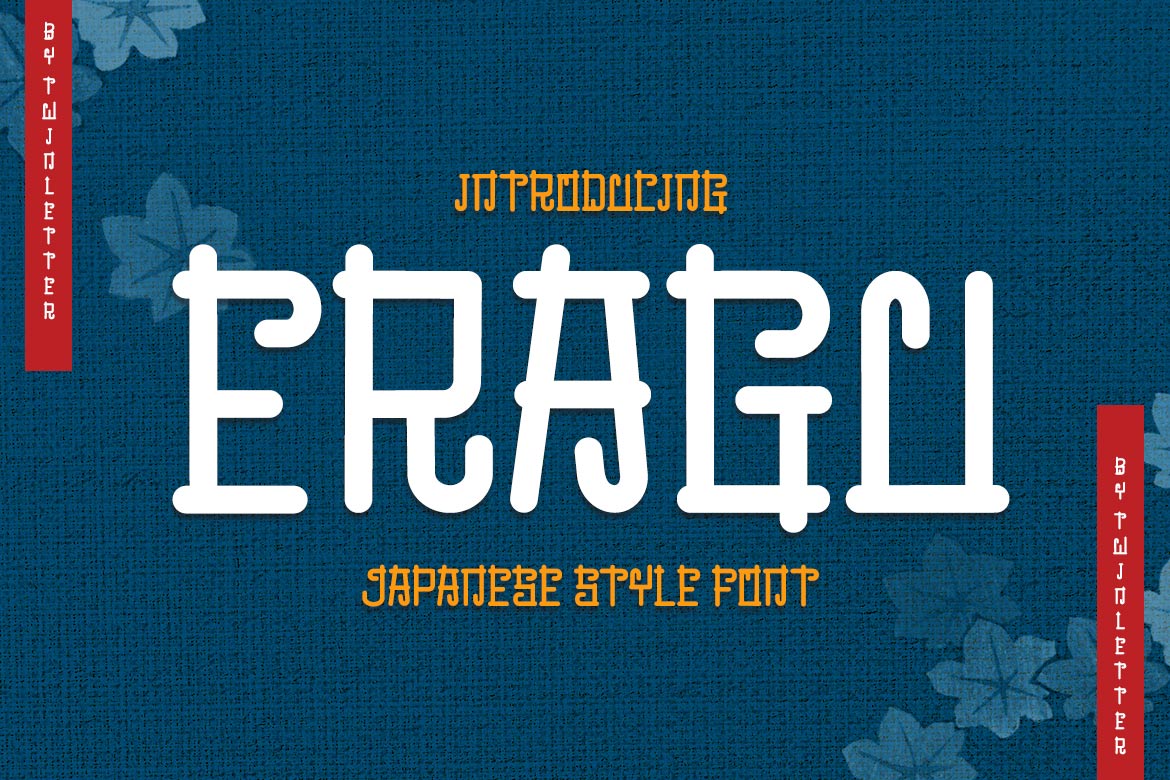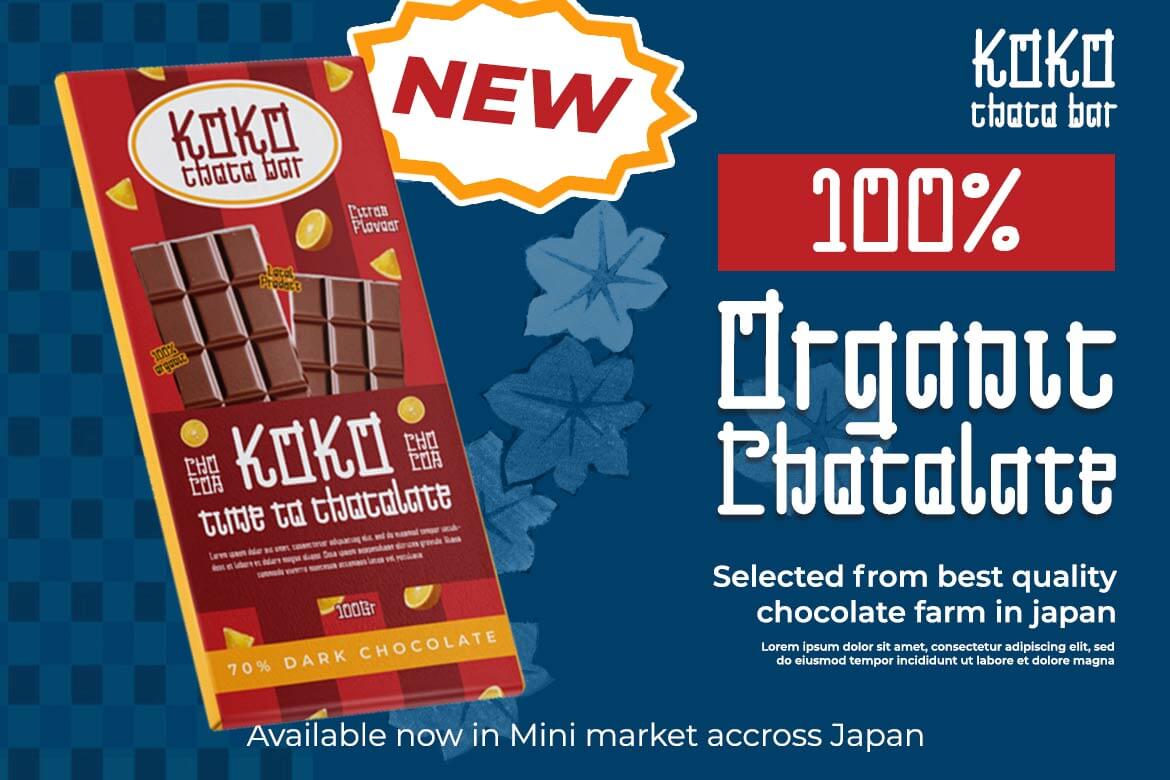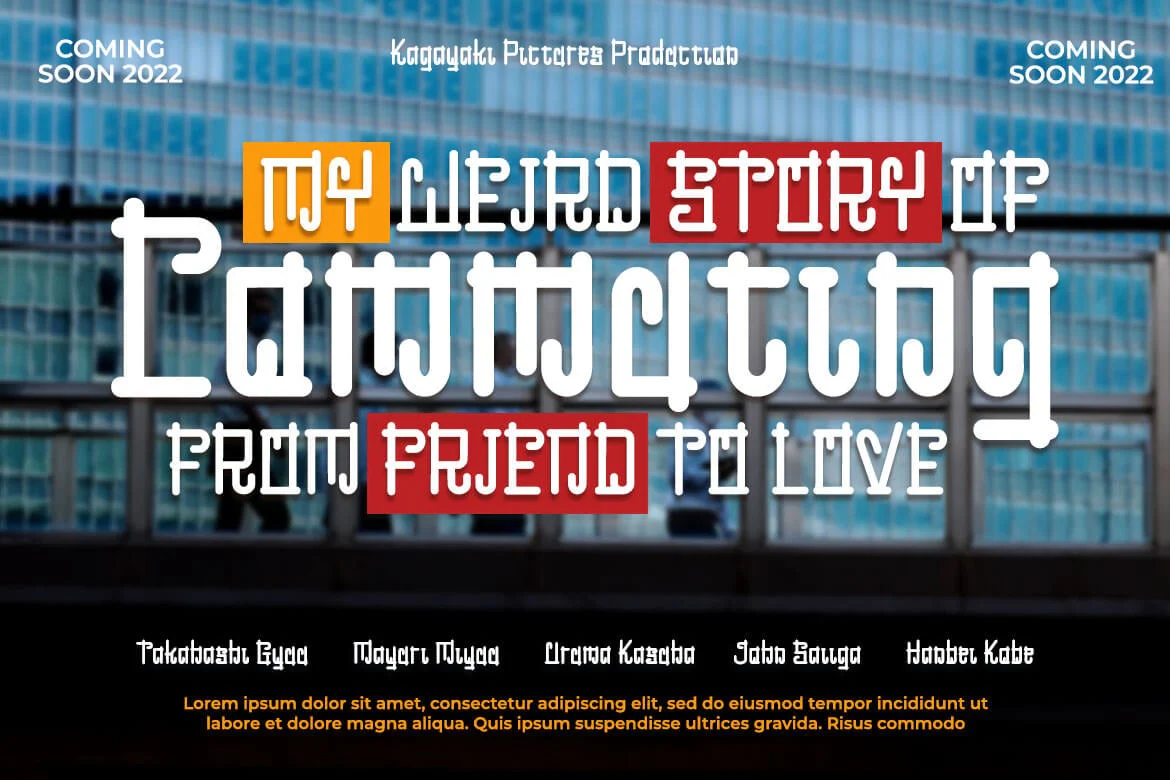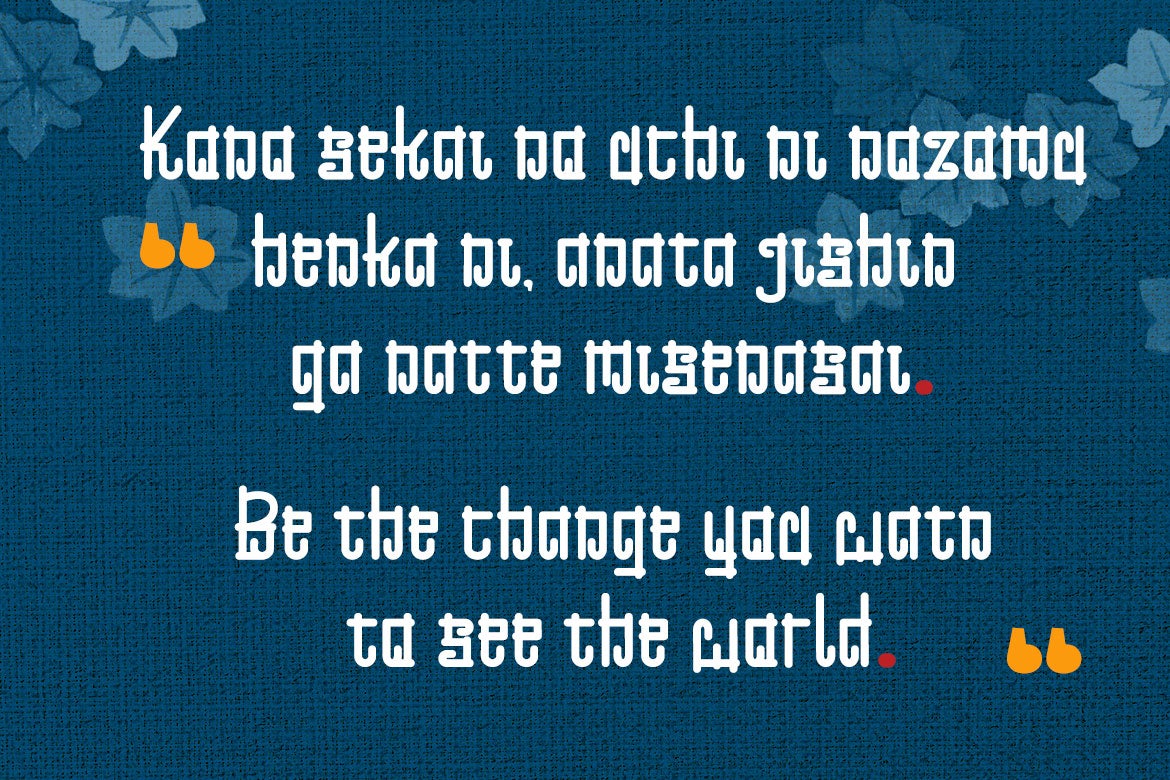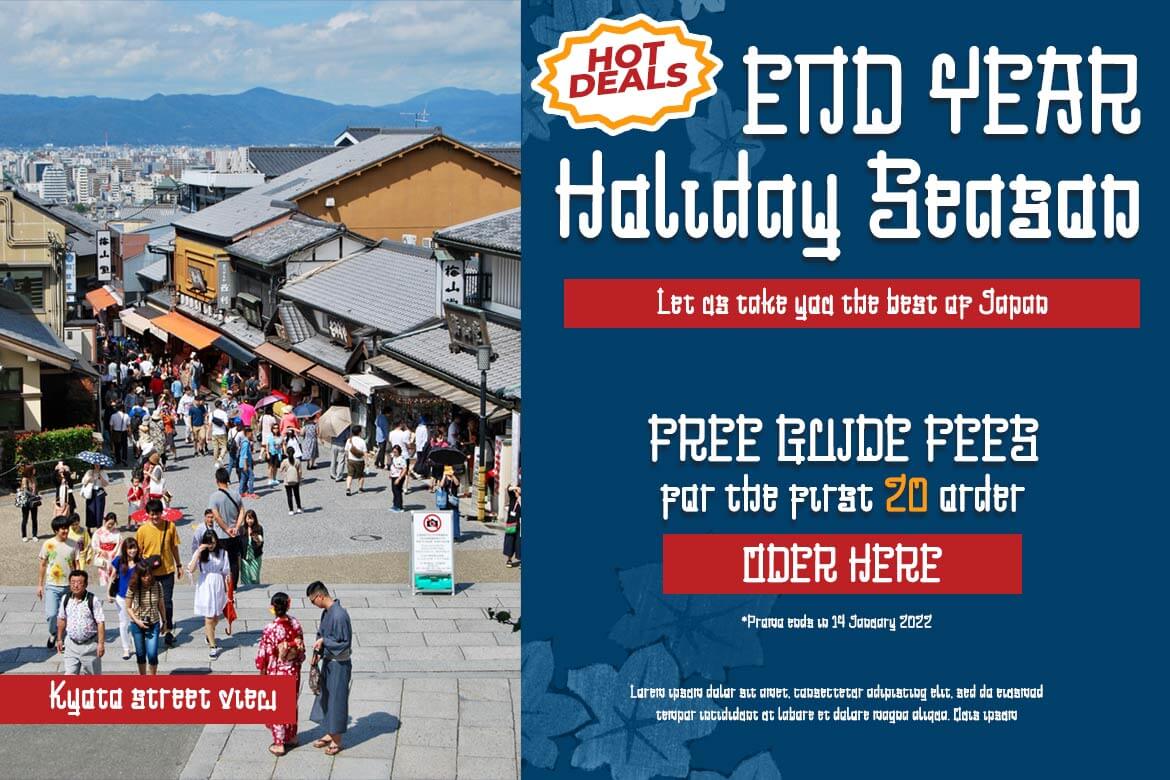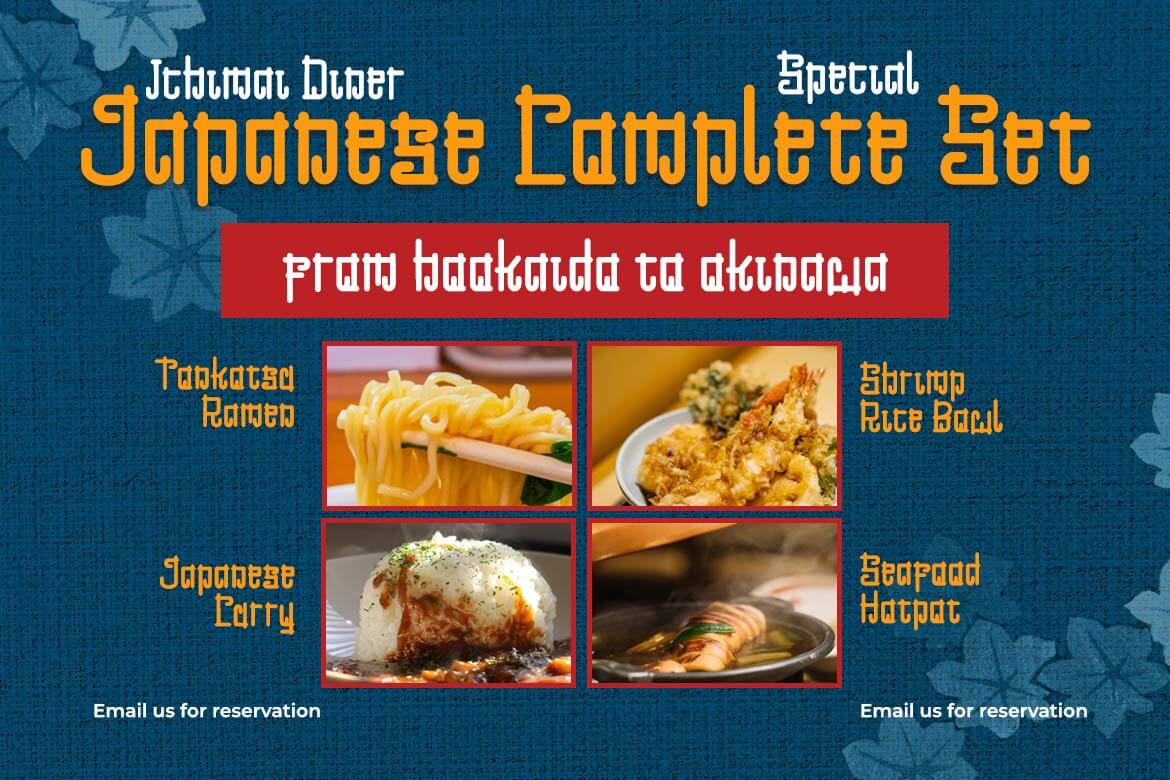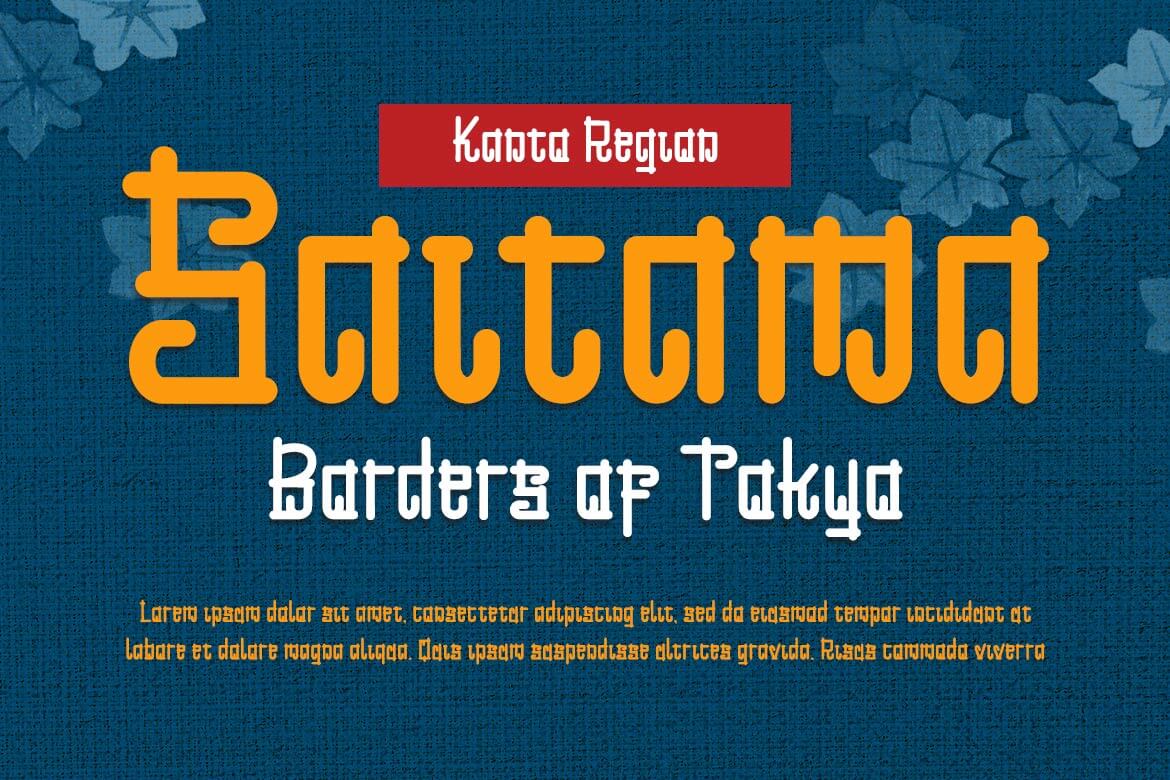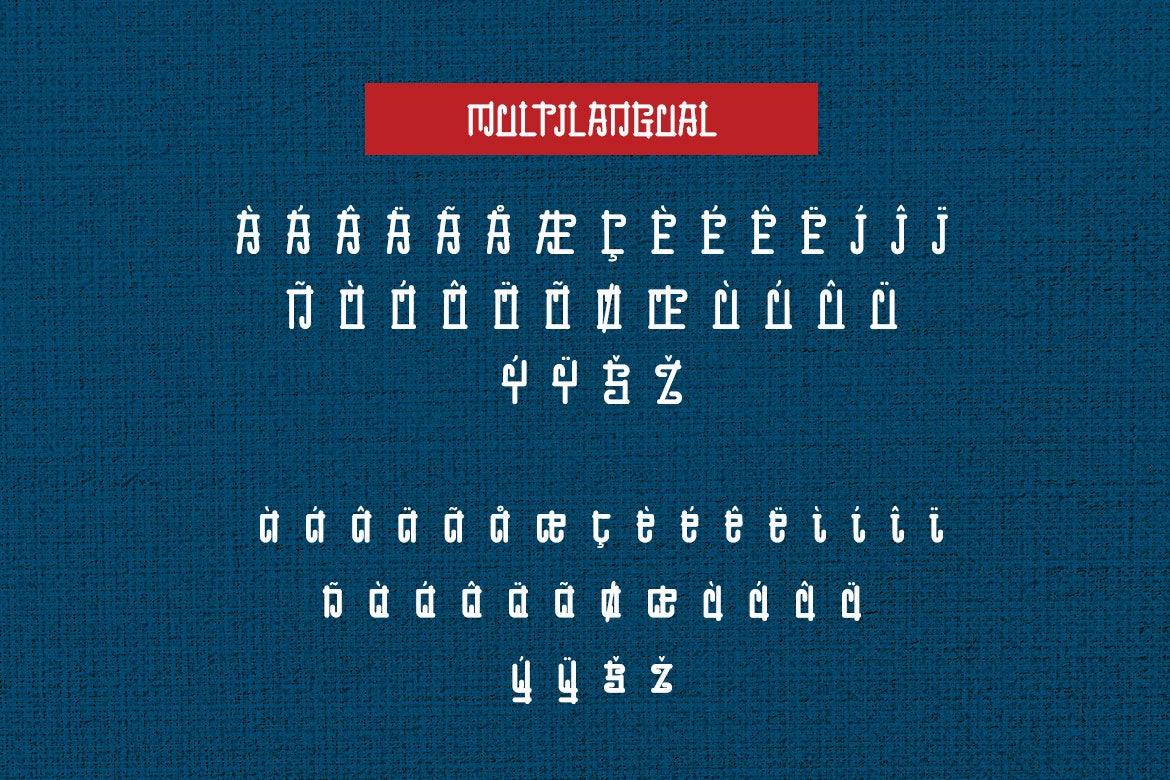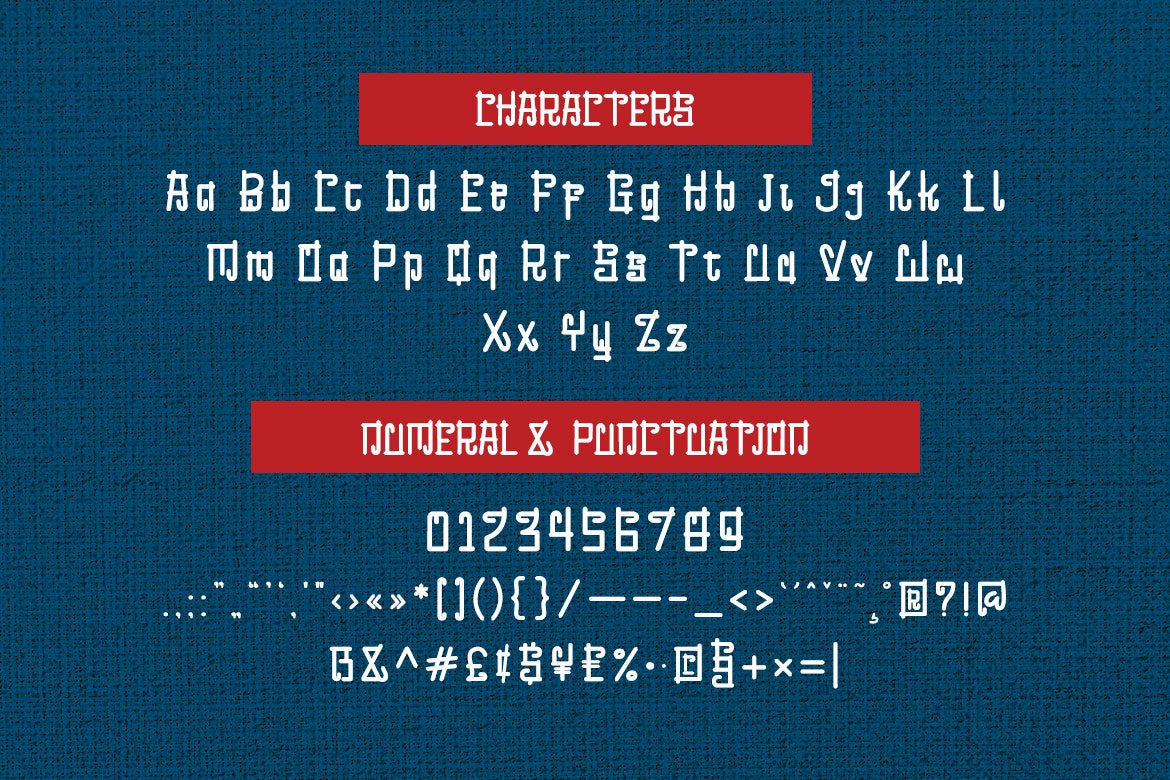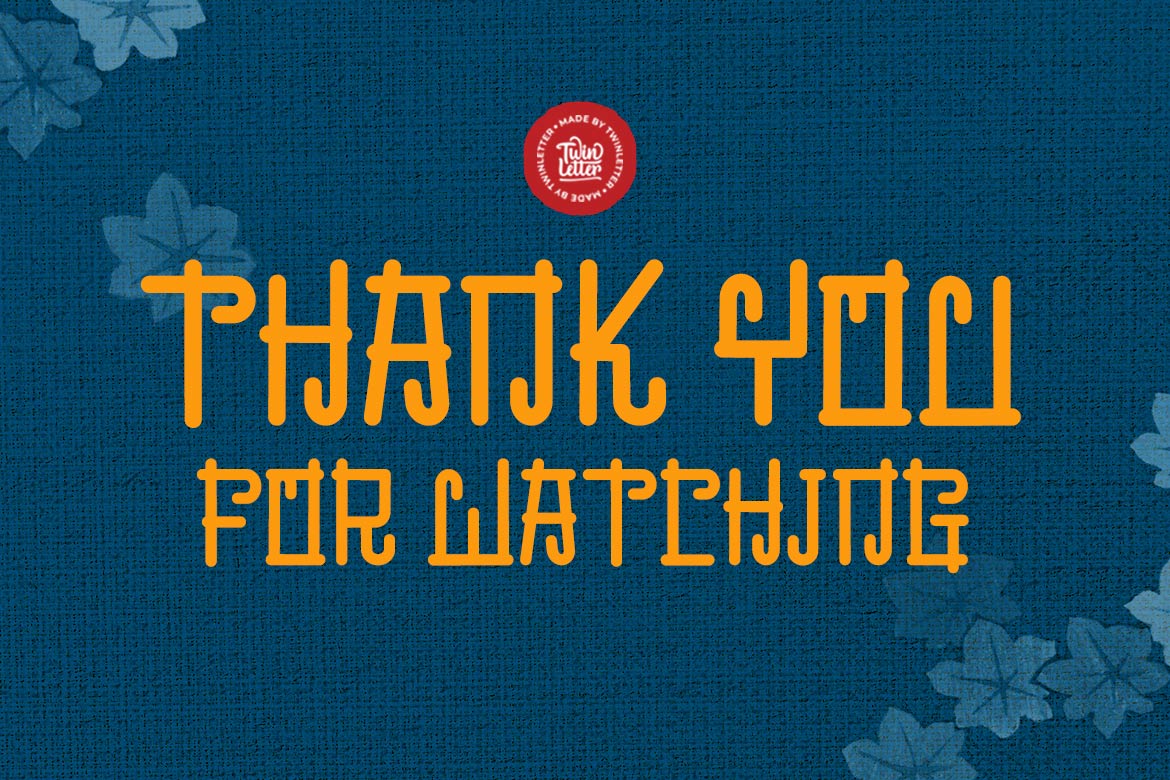
ERAGU Faux Japanese Font
ERAGU is a display typeface that is unlike any other, both in terms of shape and the impression it gives when used in words or sentences. It also has a new and unusual appearance that makes it truly unique and quirky.
All of your projects will be unique in the market if you use this font; it will pique the interest of everyone who sees it, and it will be simple to remember every message you will convey to the audience because, in just a few seconds, everyone will be interested in the appearance of your project if you use this font.
Logotypes, food banners, branding, brochure, posters, movie titles, book titles, quotes, and more may all benefit from this font.
Of course, using this font in your various design projects will make them excellent and outstanding; many viewers are drawn to the striking and unusual graphic display.
Start utilizing this typeface in your projects to make them stand out.
ERAGU is a display typeface that is unlike any other, both in terms of shape and the impression it gives when used in words or sentences. It also has a new and unusual appearance that makes it truly unique and quirky.
All of your projects will be unique in the market if you use this font; it will pique the interest of everyone who sees it, and it will be simple to remember every message you will convey to the audience because, in just a few seconds, everyone will be interested in the appearance of your project if you use this font.
Logotypes, food banners, branding, brochure, posters, movie titles, book titles, quotes, and more may all benefit from this font.
Of course, using this font in your various design projects will make them excellent and outstanding; many viewers are drawn to the striking and unusual graphic display.
Start utilizing this typeface in your projects to make them stand out.